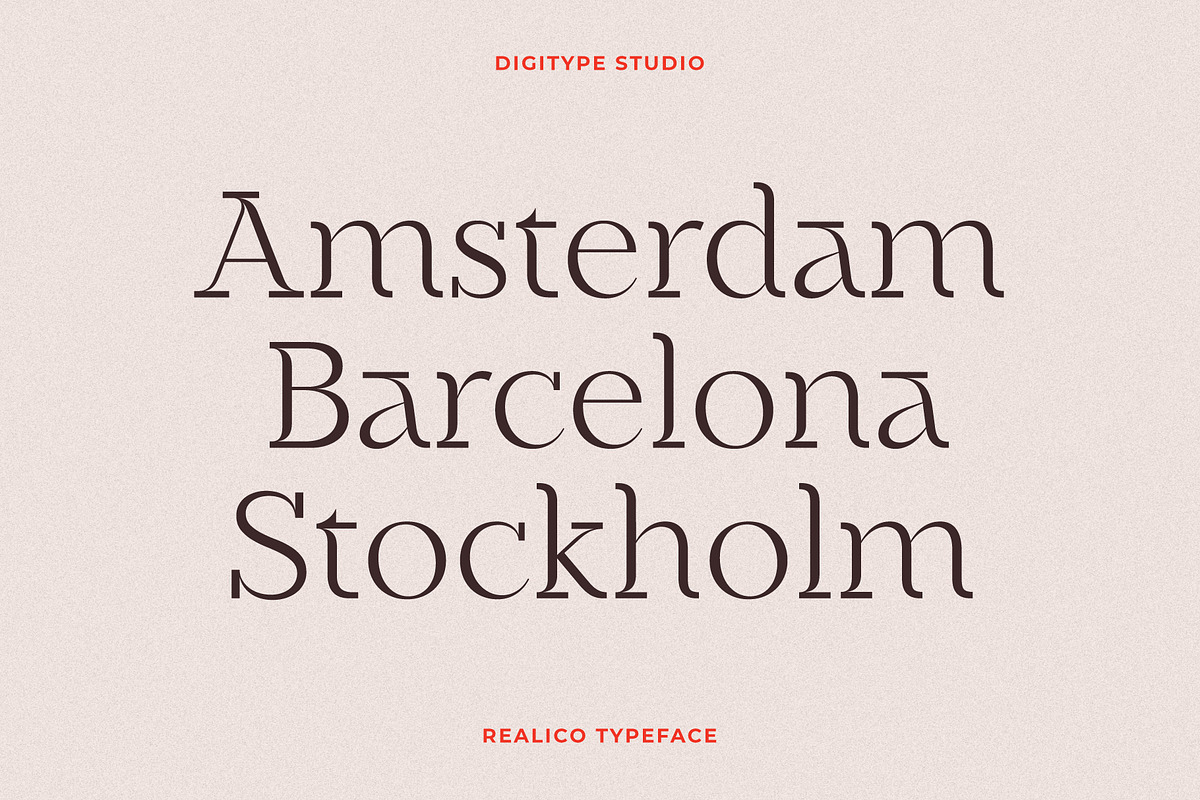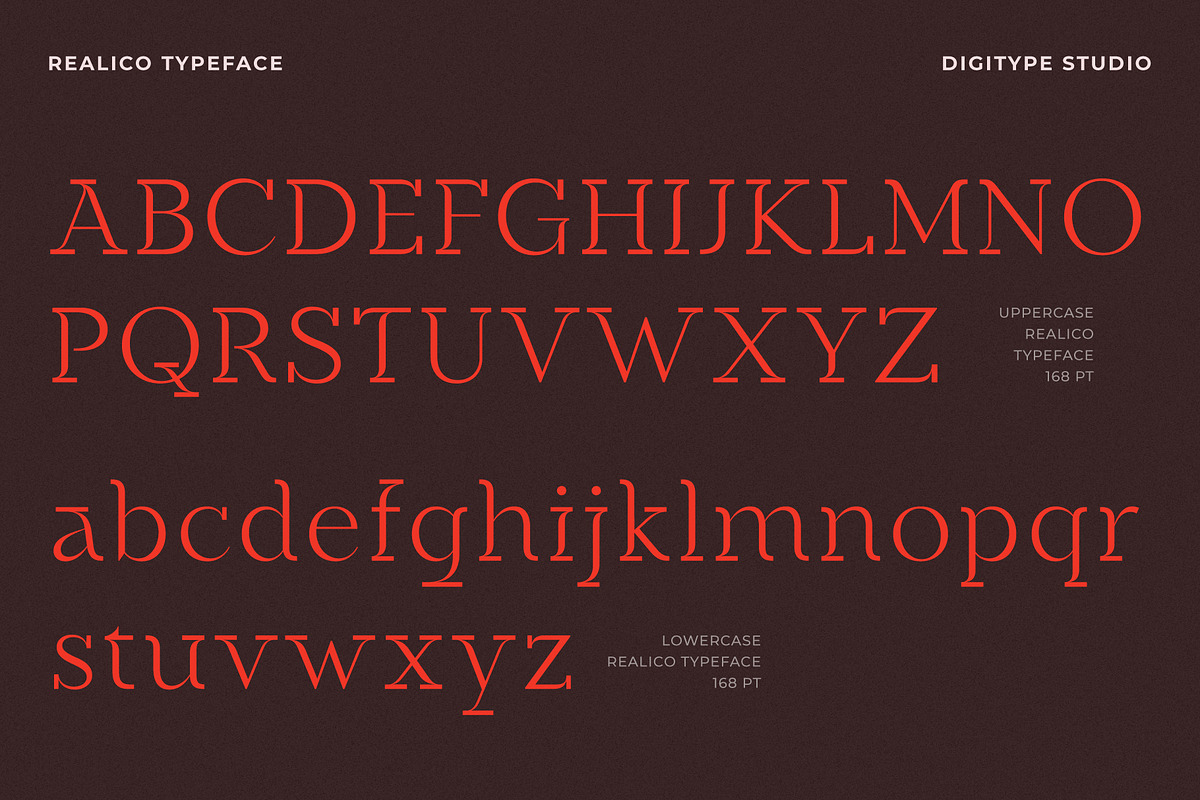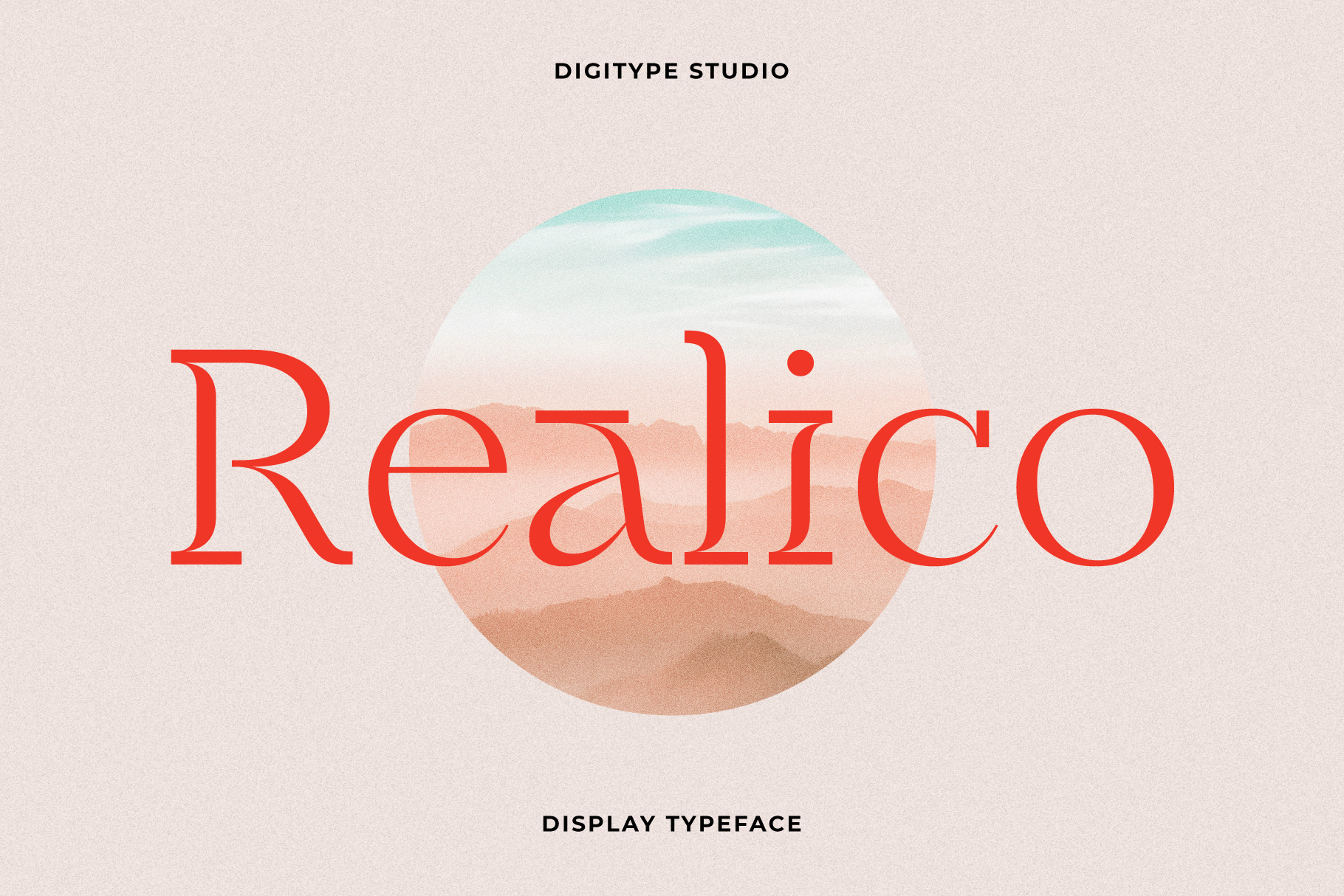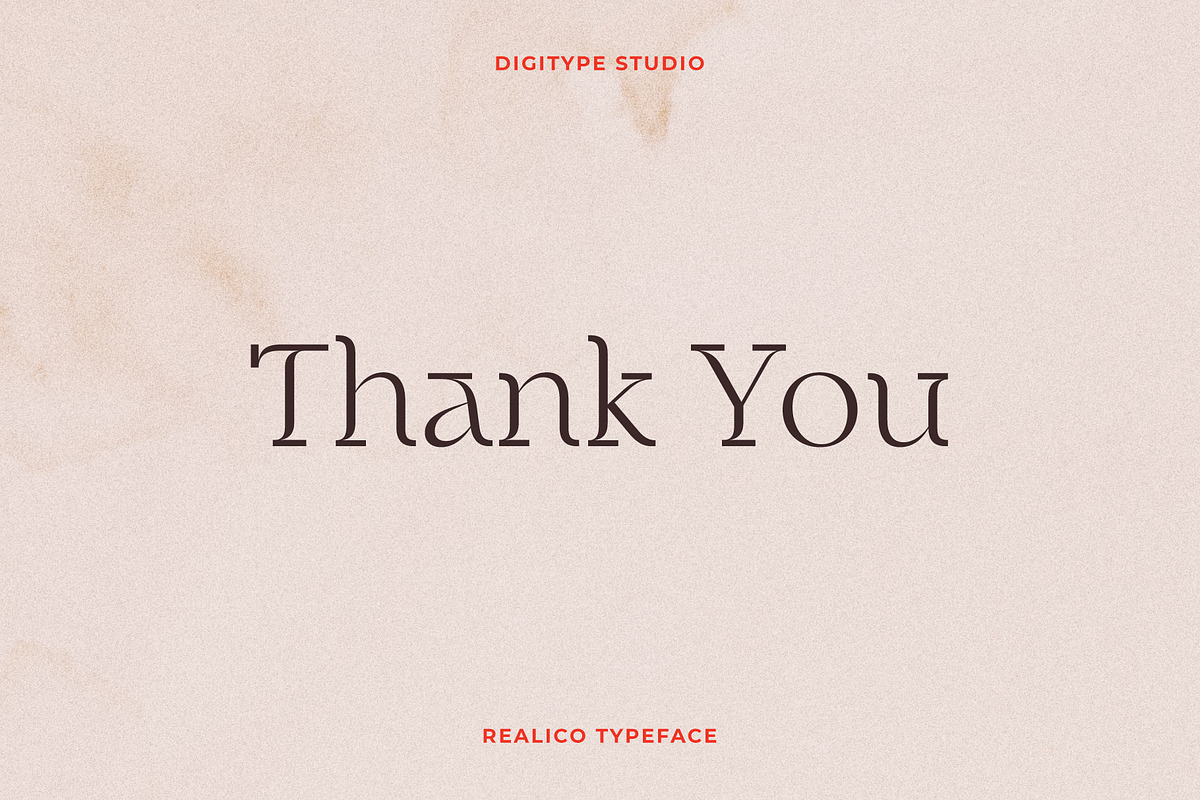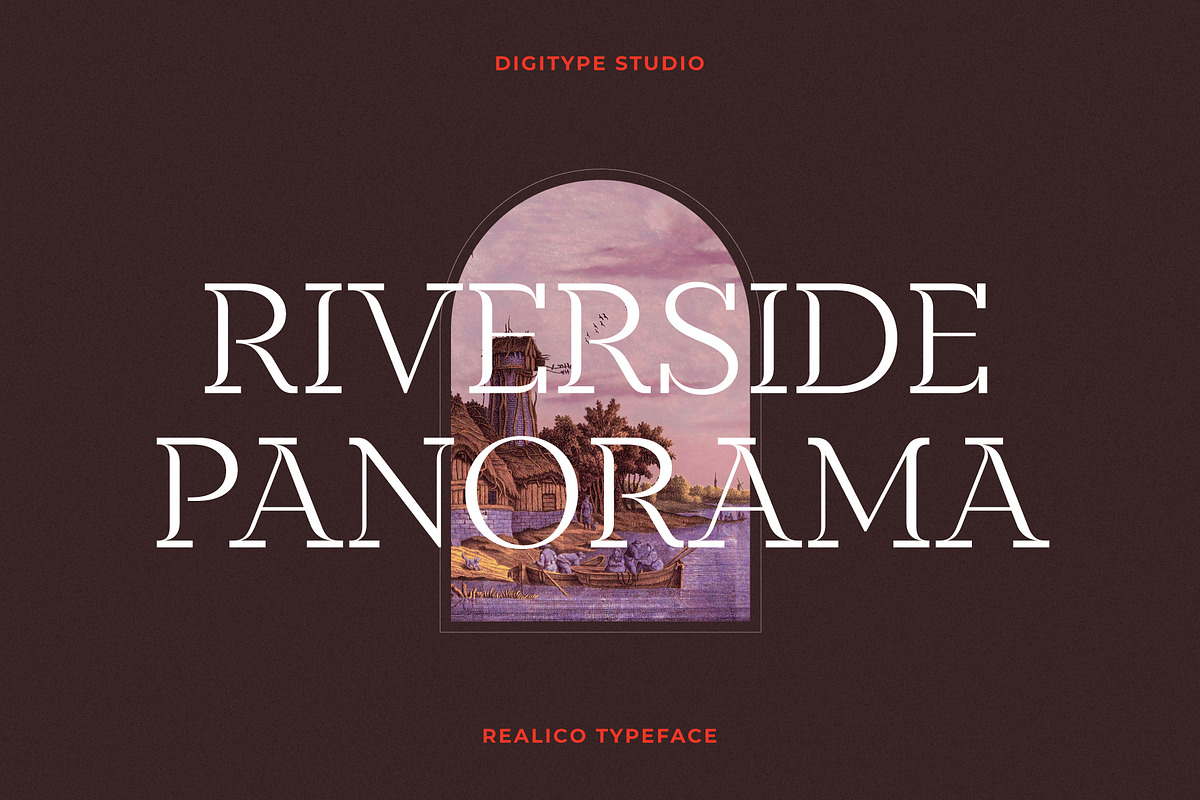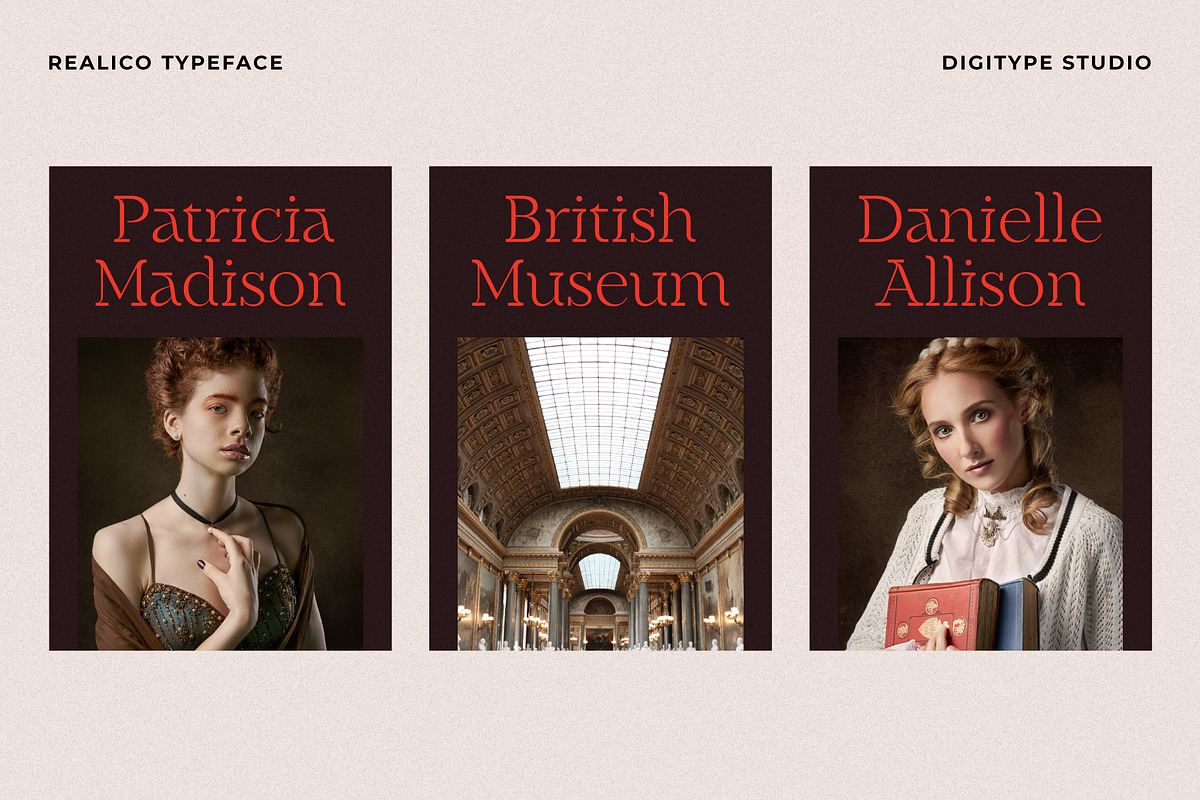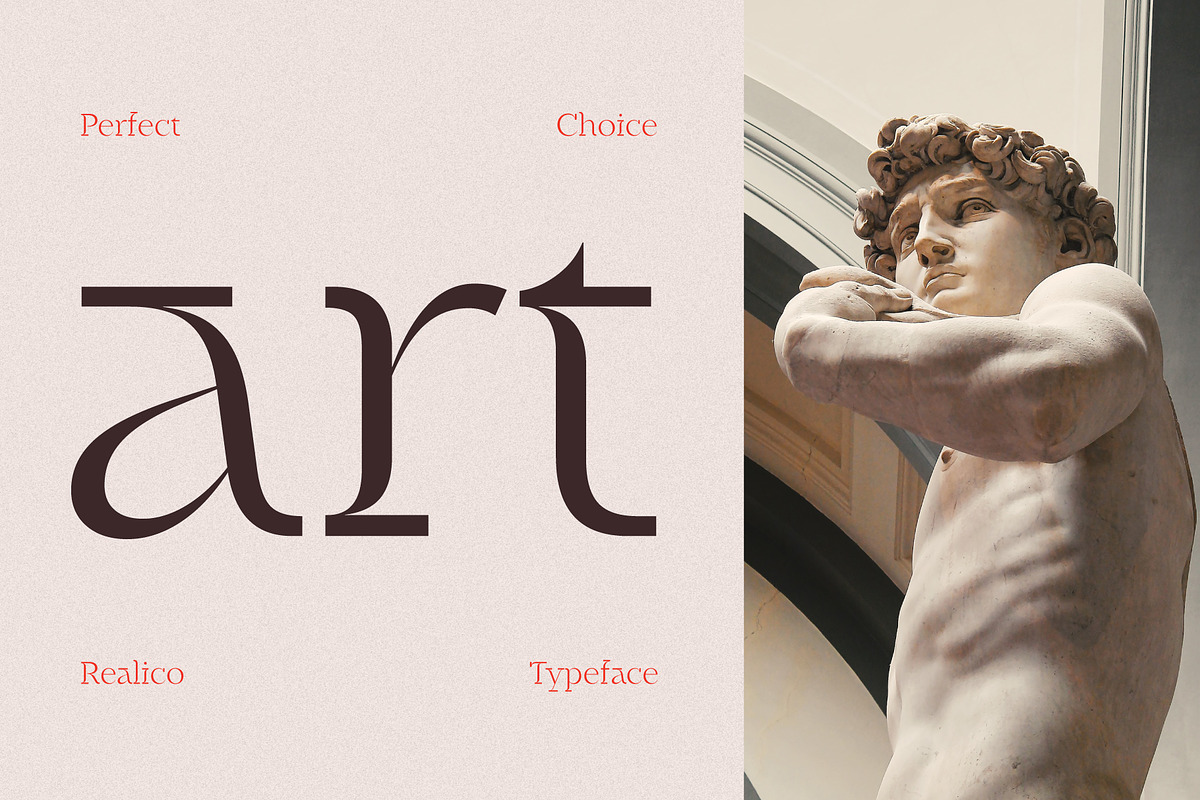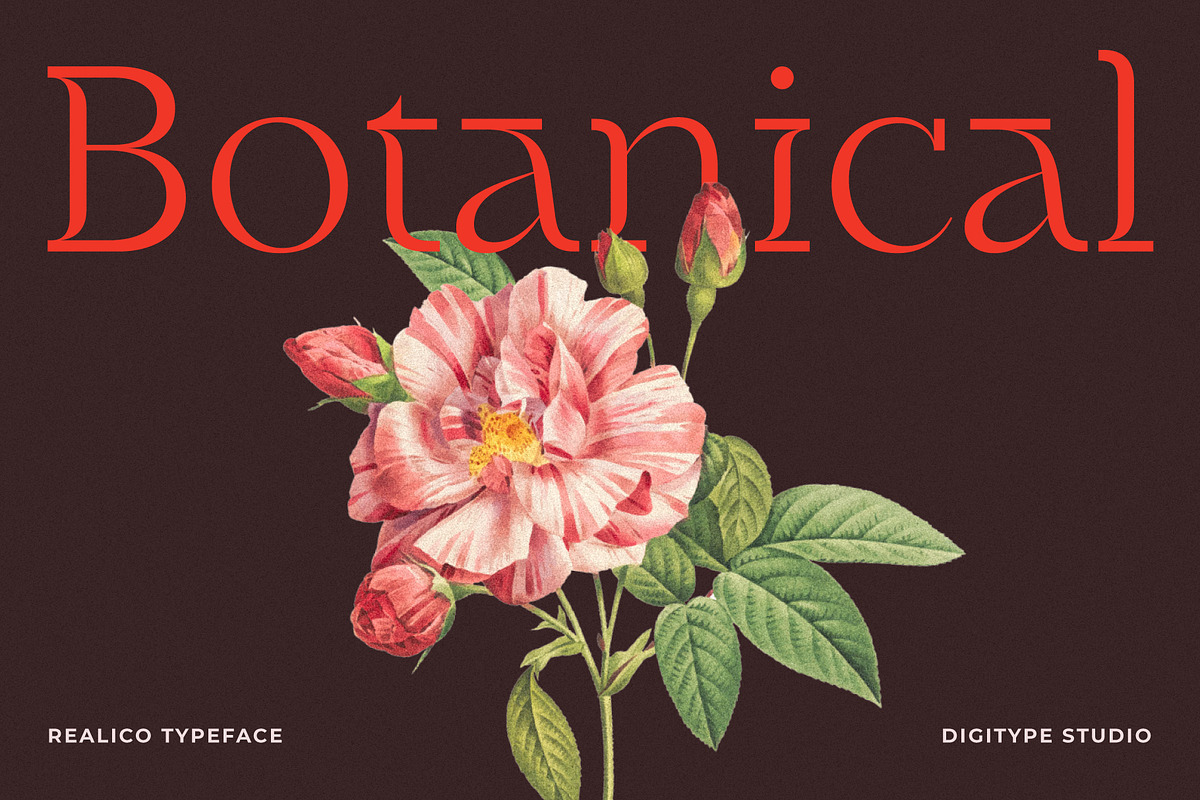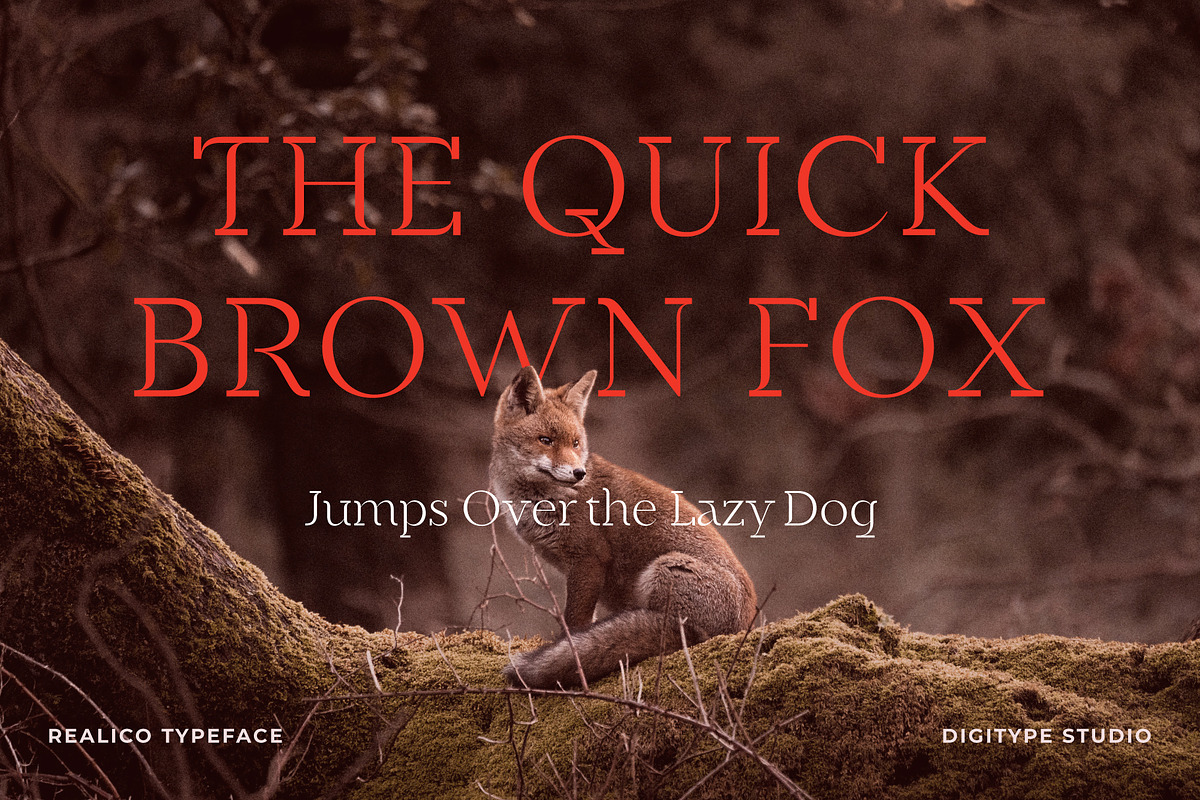
Realico Font
Realico is a serif display made carefully and gives a unique impression to your text. This font is suitable for titles, logos, and other formal forms such as t-shirts, labels, magazines, books, greeting cards, packaging, fashion, makeup, stationery, novels, labels, or any advertising objective.